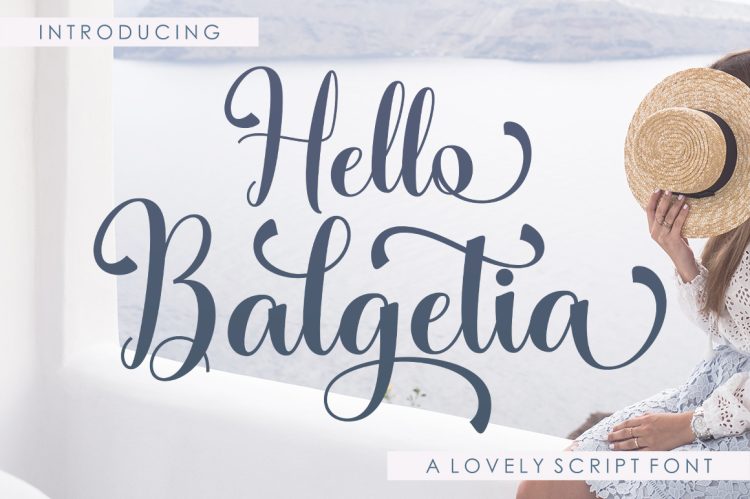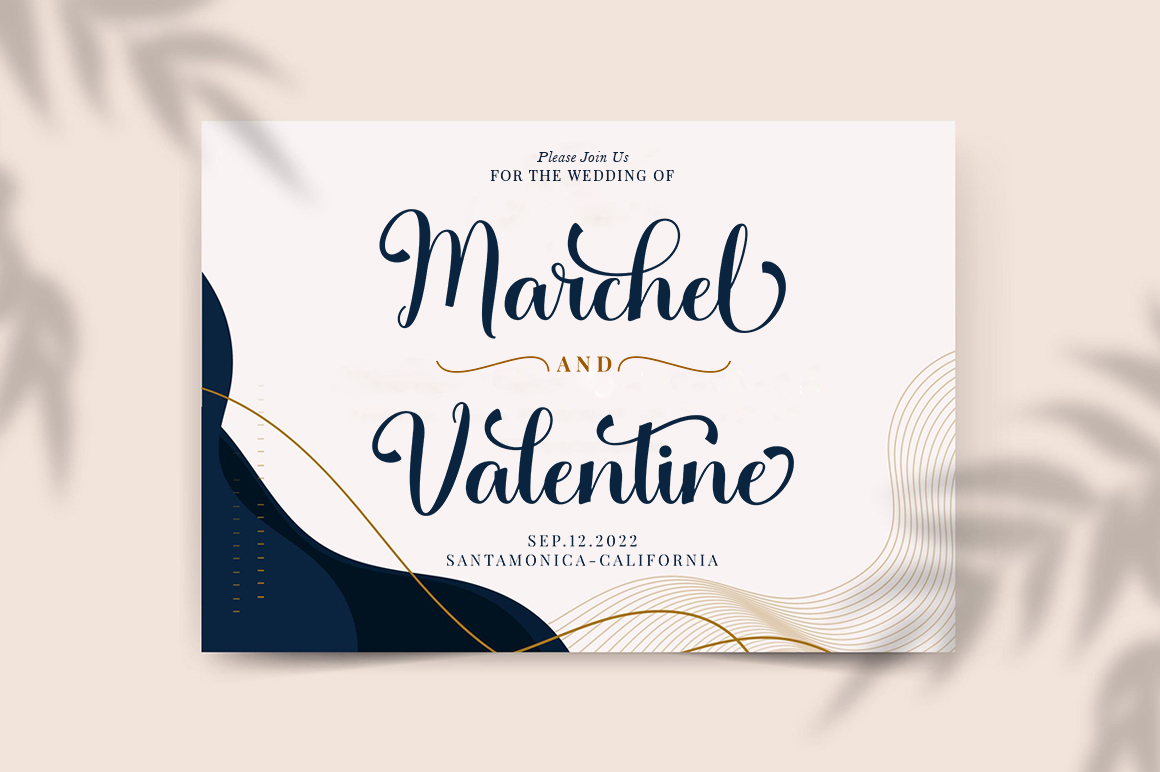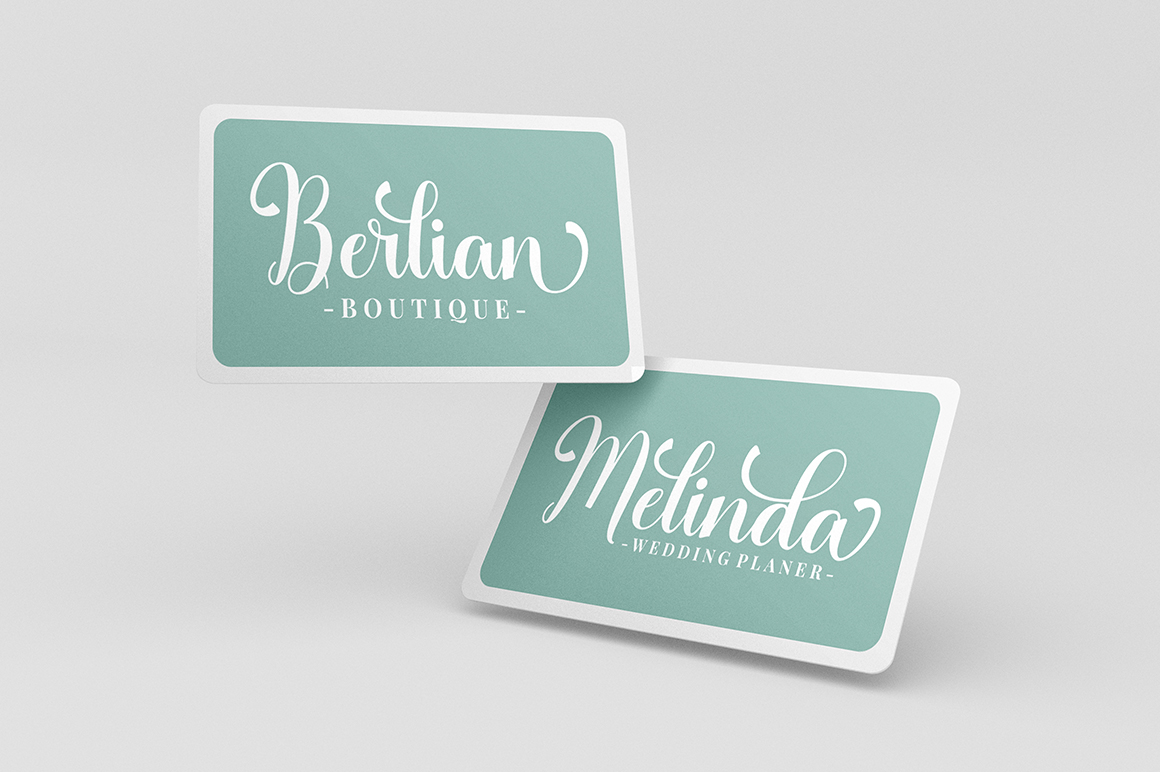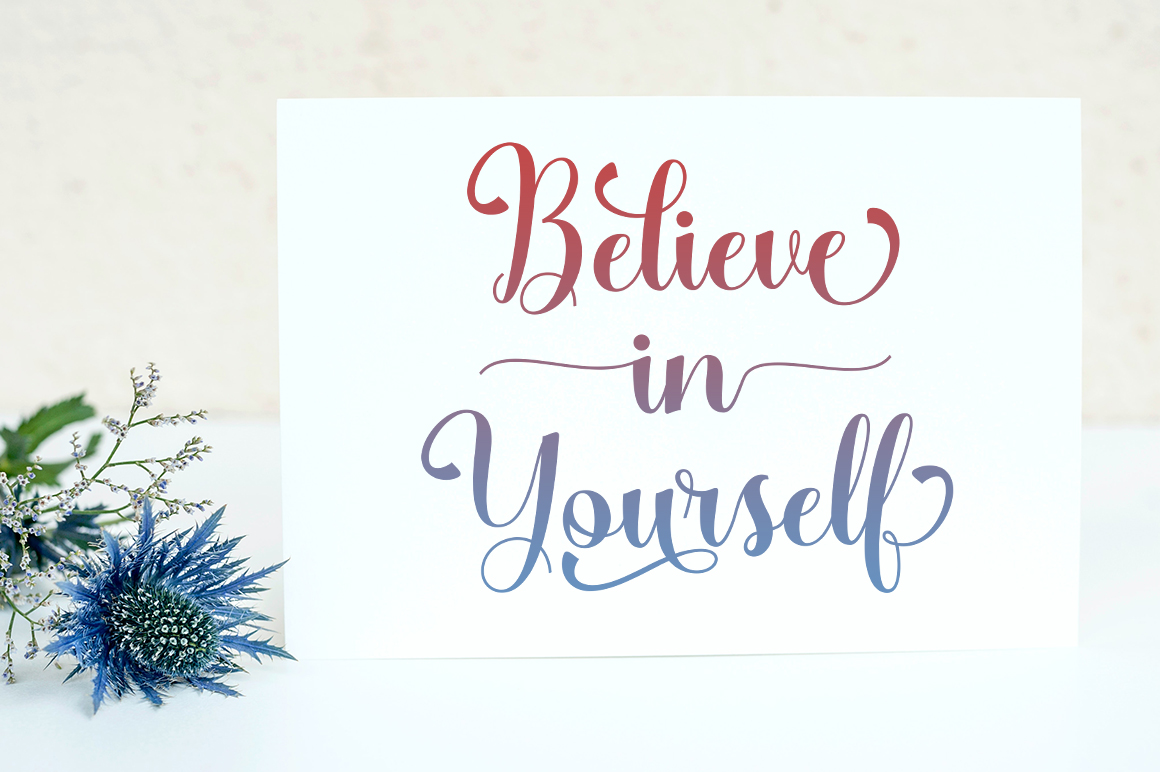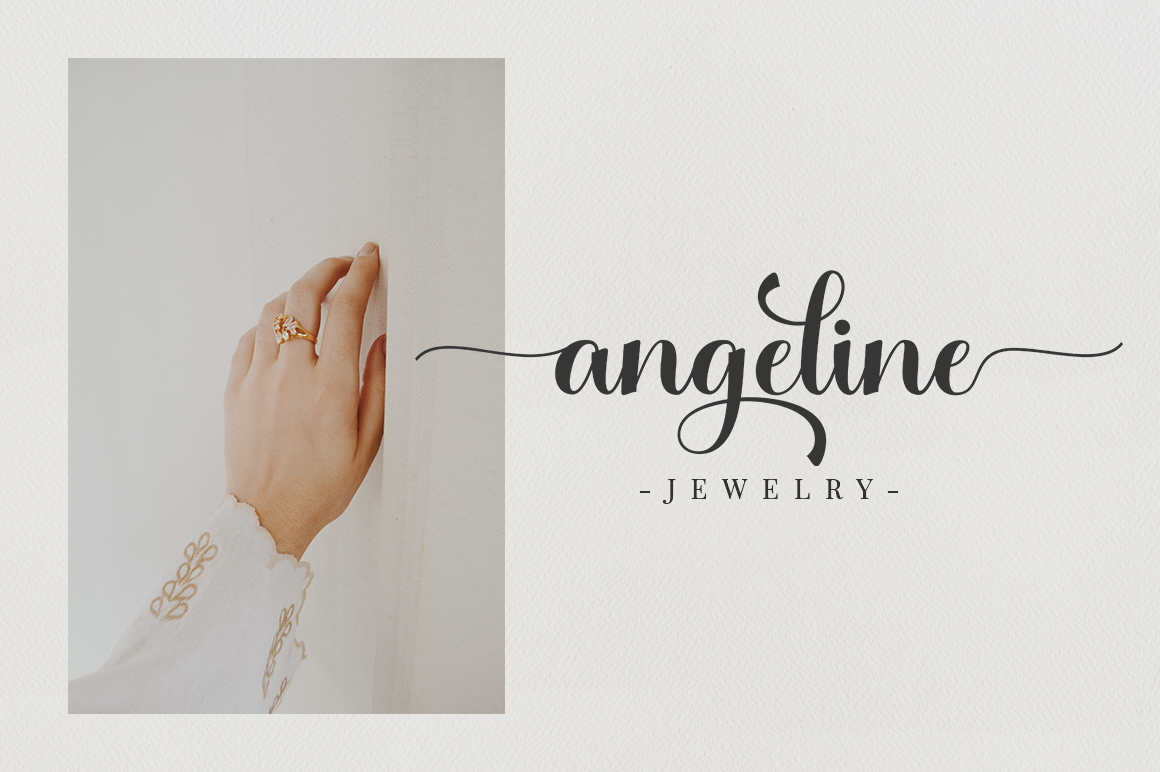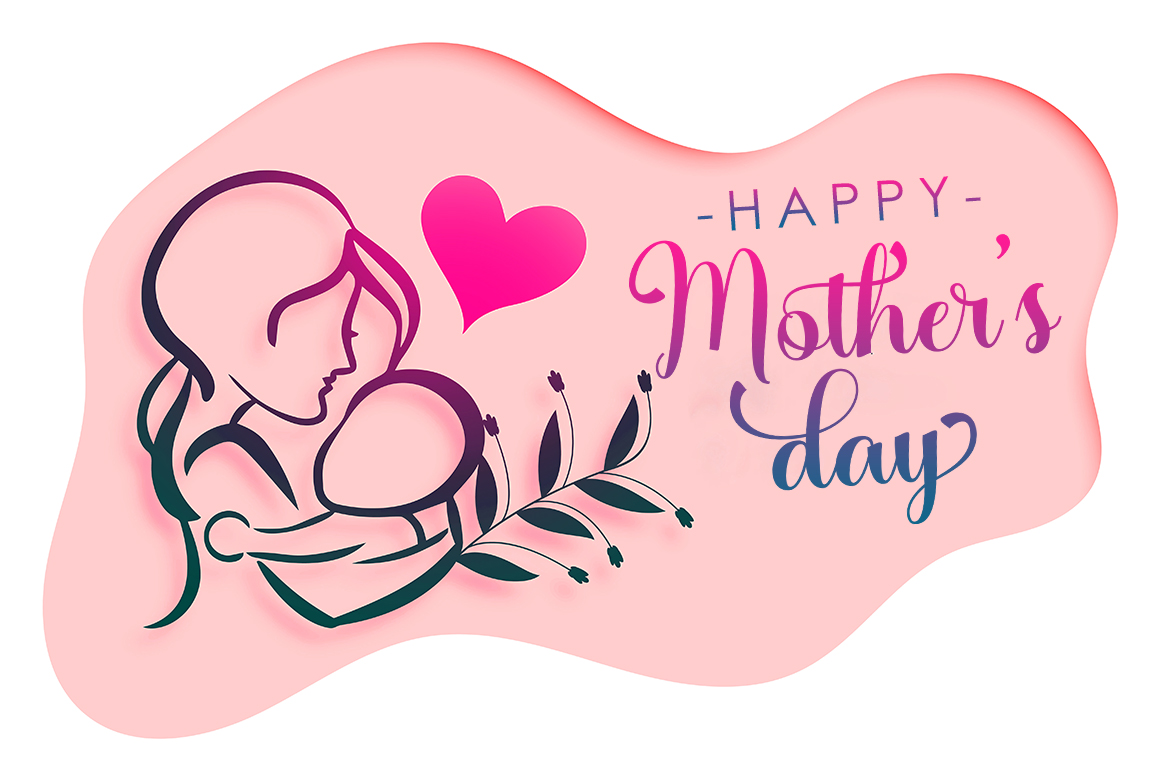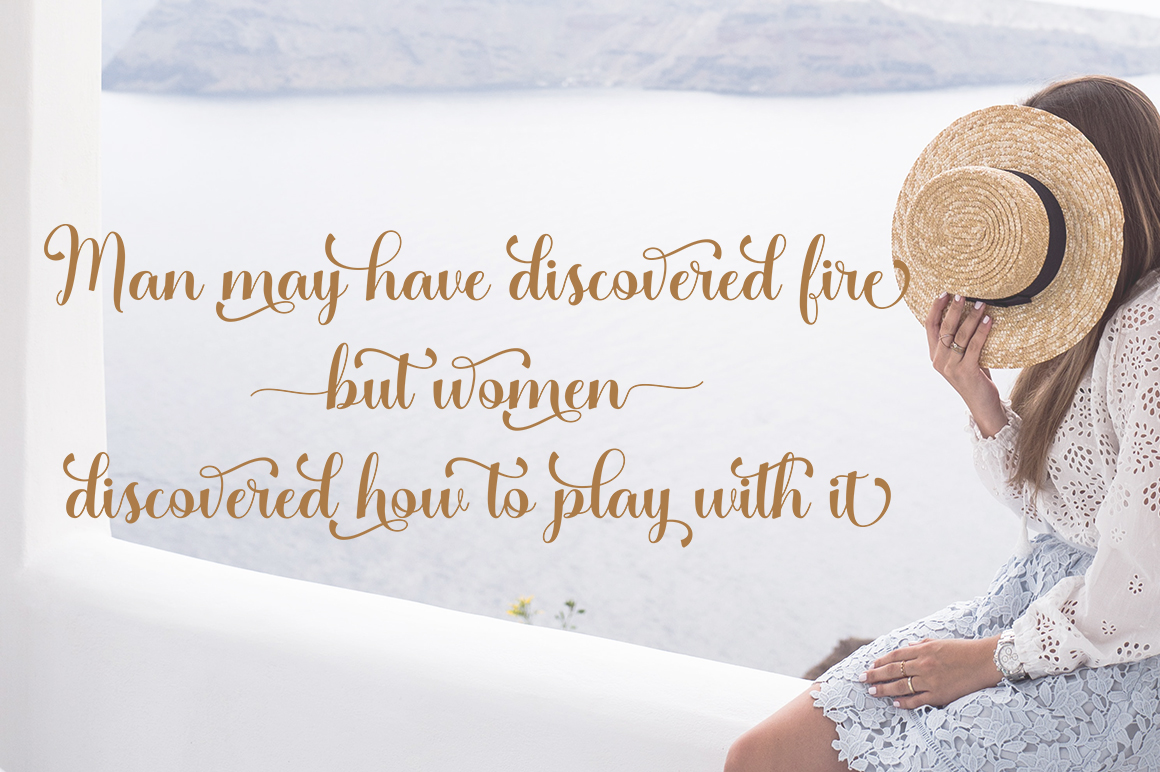
Hello Balgetia Script is a lovely script font, including Regular. This font is casual and pretty with swashes. Can used for various purposes. such as logo, product packaging, wedding invitations, branding, headlines, signage, labels, signature, book covers, posters, quotes and more.